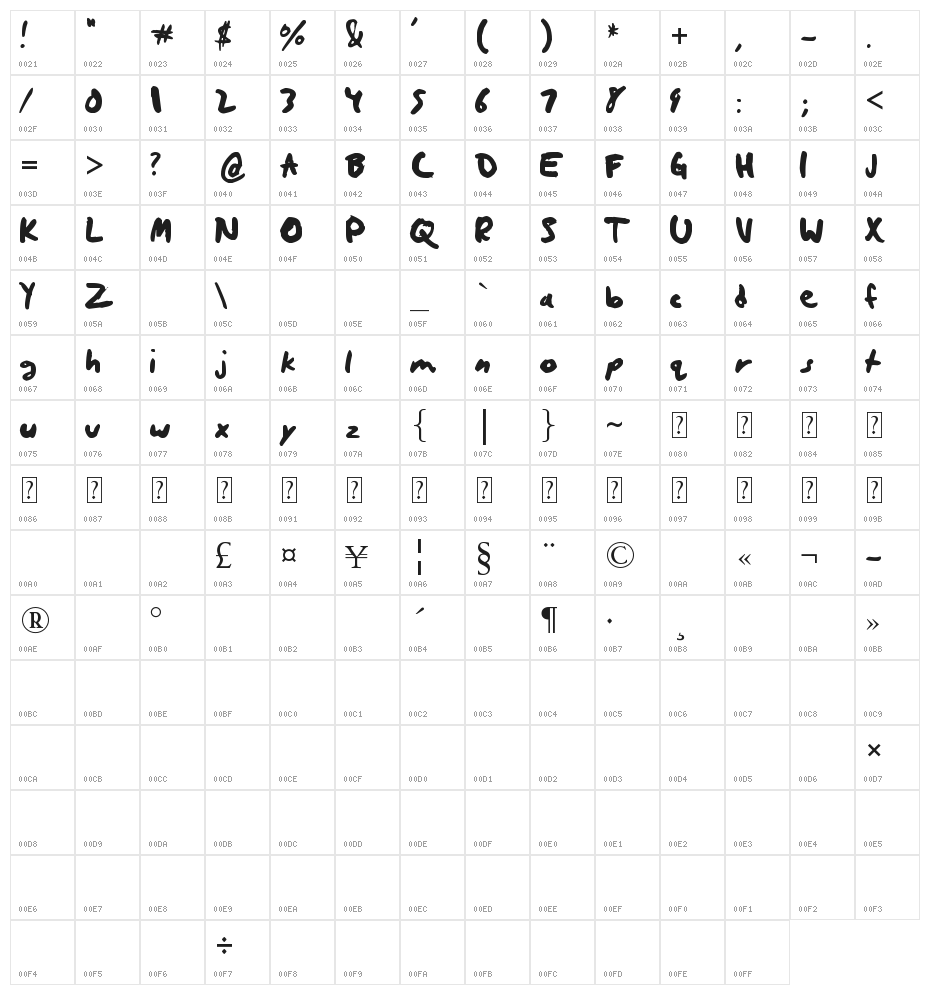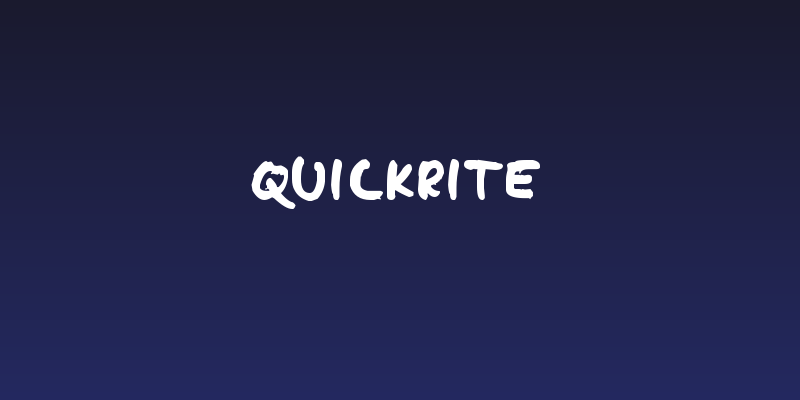
quickrite Font
| Style général | Casual, Playful |
| Cas d'utilisation | Headlines, Logos, Informal Invitations |
| Projets proposés | Ideal for greeting cards, posters, social media graphics, and branding projects that seek a personal and informal touch. |